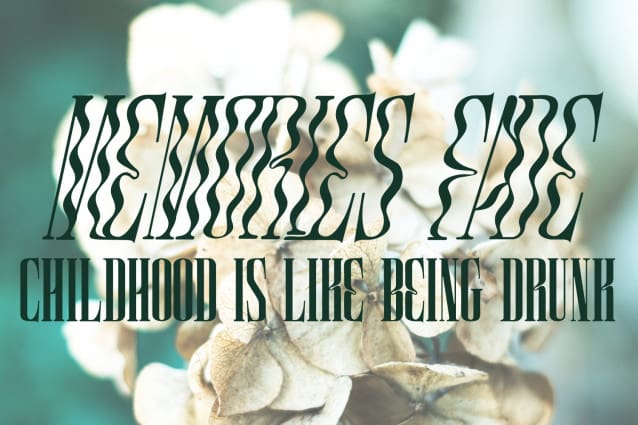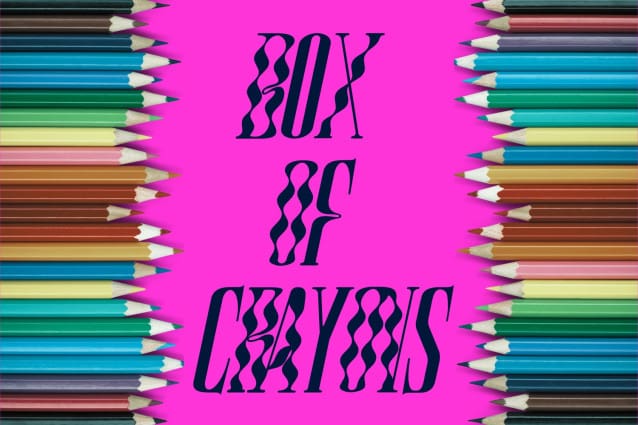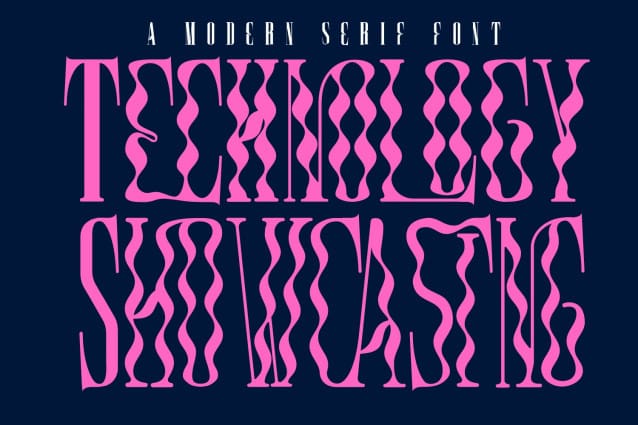
Technology Showcasing Font
Technology Showcasing Font is a condensed font, wavy display face. it was designed with a synthesis of the future and the past. While it carries sharper and futuristic lines than the future, it also incorporates the organic structure of the past. A type piece we loved, originally inspired by Brutalist Architecture. It featured some very interesting glyphs, mainly super narrow and with extra deep inktraps. It’s a massive font that will grab the attention. It’s gonna look great on a magazine spread, cover or a poster in large print.
Technology Showcasing was built with OpenType features and includes 100 ligatures, alternate, numbers, punctuation, and it also supports other languages.